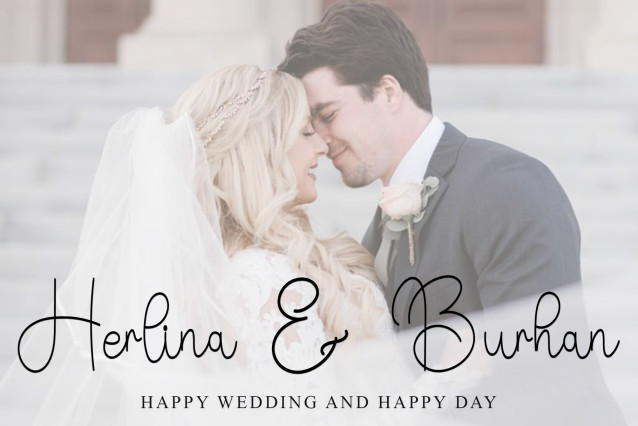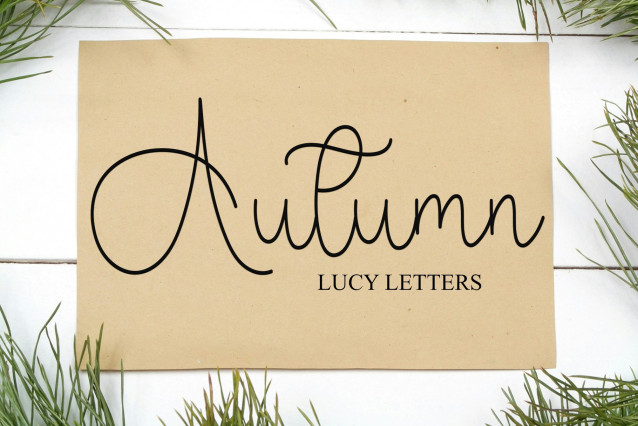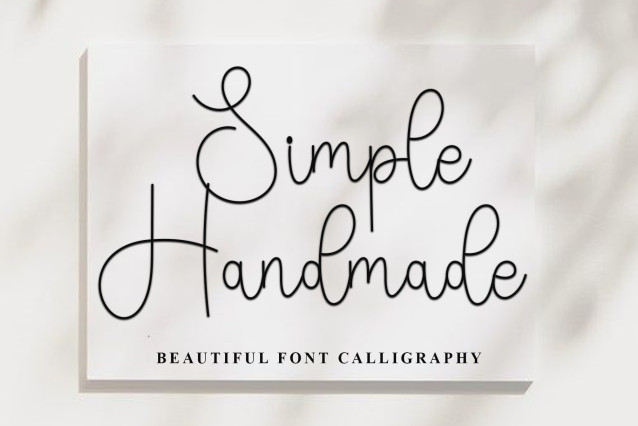
Vibes Handmade Font
Vibes Handmade Font is a simple and friendly handwritten font. Its natural and unique style makes it incredibly fitting to a large pool of designs. The only limit is your imagination!